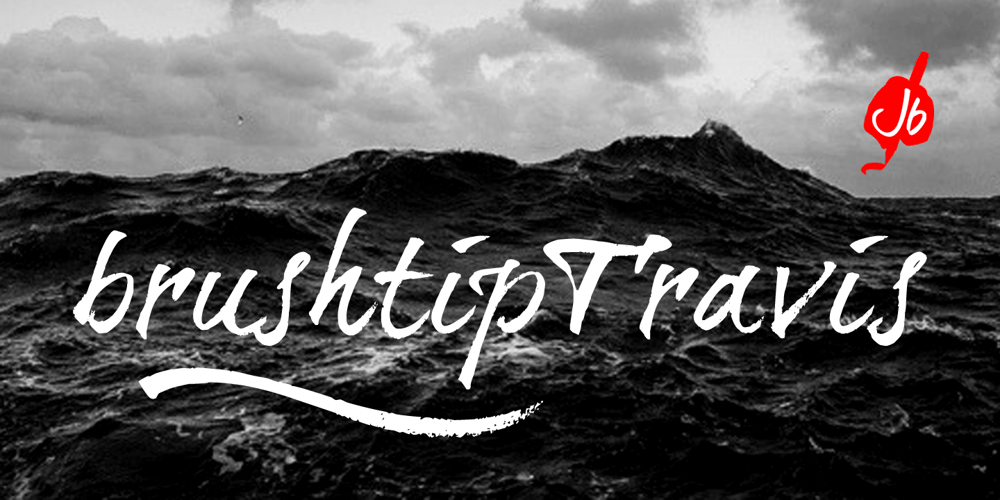
BrushtipTravis Font Family was designed by Jeroen “Joebob” van der Ham and published by JOEBOB graphics. BrushtipTravis contains 1 styles and family package options. Slightly slanted brush tip handwriting script that looks both elegant and streetwise, very suitable for all your poetry, lyrics and memoires. The font comes with a couple of swashes to use as you please and includes all eastern European, Baltic, Scandinavian and Turkish characters.